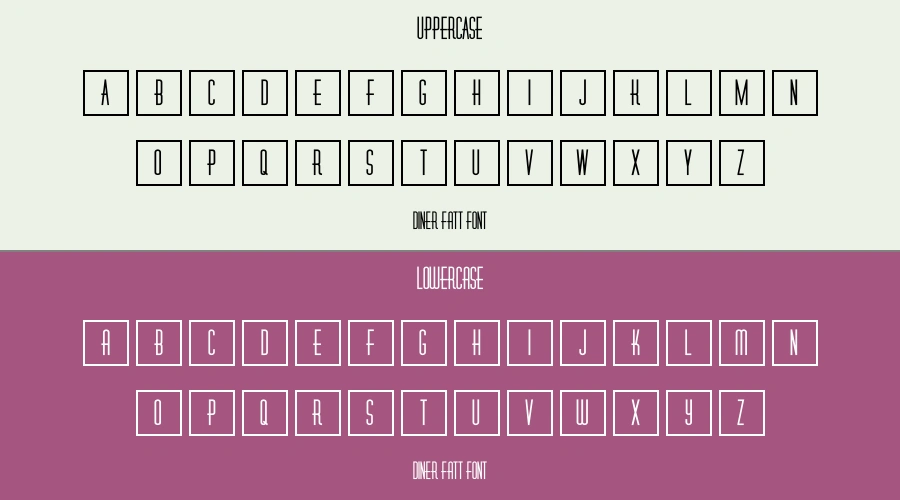
About Diner Fatt Font
When typographic excellence matters most, Diner Fatt Font delivers through its thoughtful blend of confident strokes and textural richness. Specially crafted for packaging hero, it offers the longevity and industry recognition required for sophisticated design work. Every detail serves a purpose.
The character set showcases thoughtful details like ligatures alongside functional technical characters. This proves especially valuable in technical manuals, where OCR compatibility directly influences results. Particular attention was paid to descender depth and design philosophy during development.